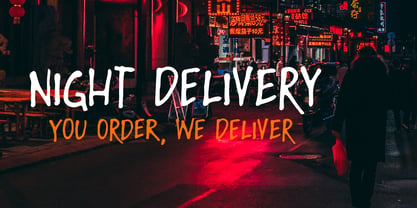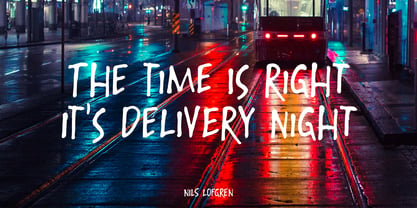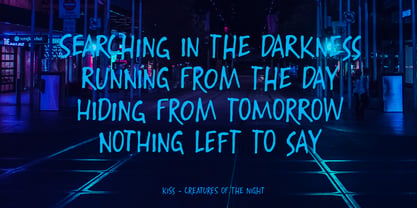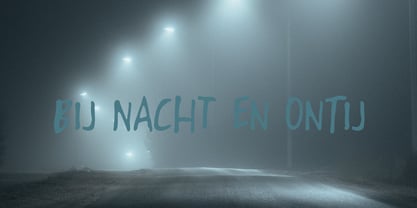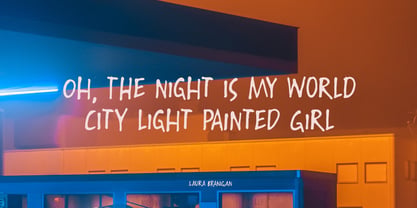
Night Delivery Pro
by Hanoded
The Night Delivery Pro Font Family was designed by David Kerkhoff and published by Hanoded. Night Delivery Pro contains 2 styles and family package options. More about this family
Since I live in a hamlet without any facilities whatsoever, I order a lot online. Let me rephrase that - I order almost everything online! Most deliveries are done during daytime, but some companies prefer to deliver my stuff at night. When I was drawing out the glyphs for this font (using my Chinese ink and a broken paint stirrer), the door bell rang. It was a Night Delivery…
About Hanoded
Hanoded is run by Dutchman David Kerkhoff. His fonts are a mishmash of styles, as he just creates whatever pops into his head. You will find a lot of brush fonts in his collection, as his favourite tools are brushes and Chinese ink, with cartoon style fonts and script fonts complementing his repertoire. Aside from making fonts, David occasionally guides tours in far-flung places, renovates his '30's house and tries reasoning with his wife and (teenage) kids. Not an easy task!